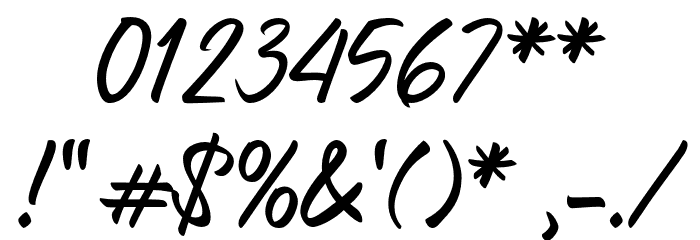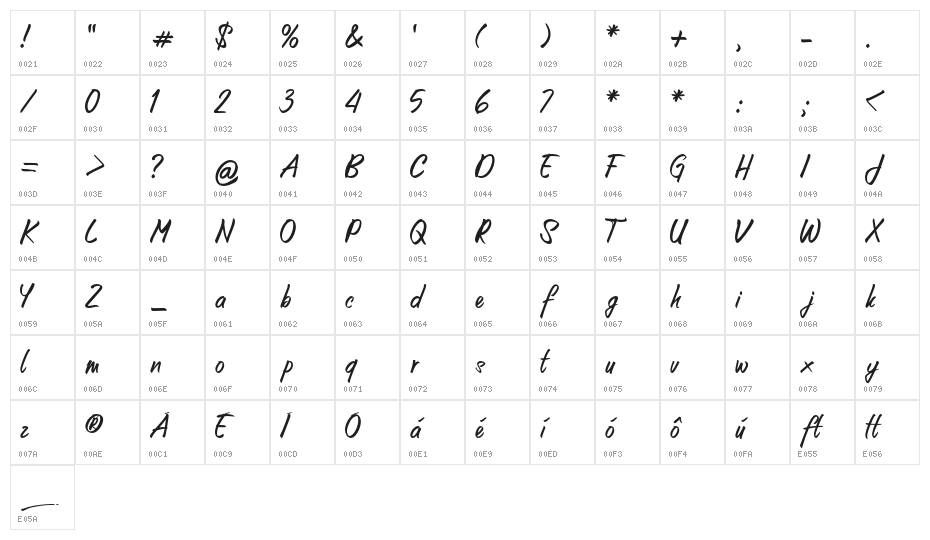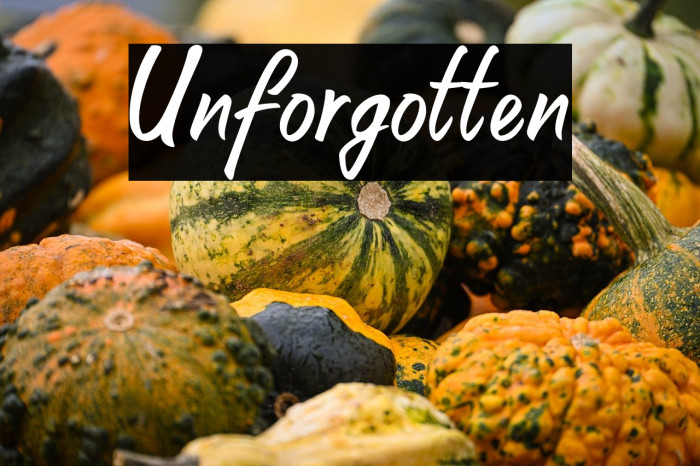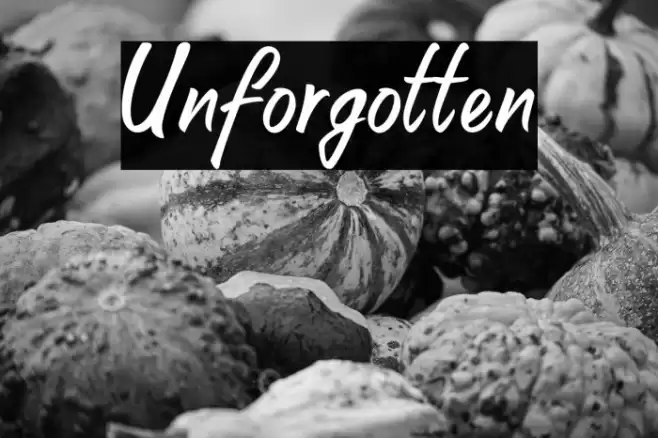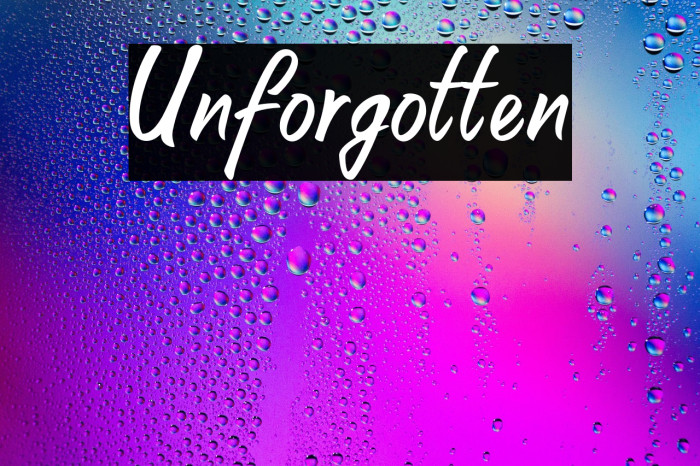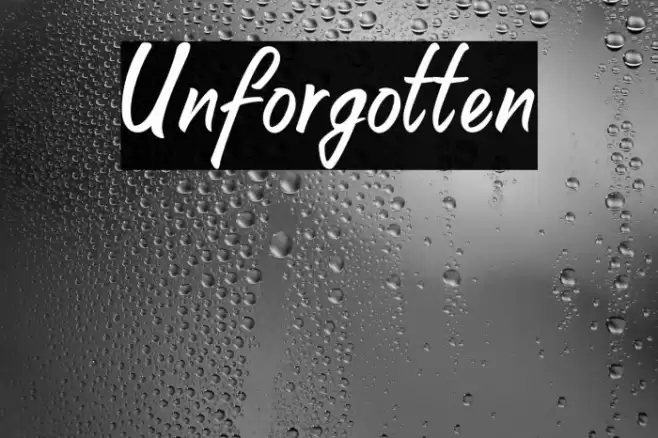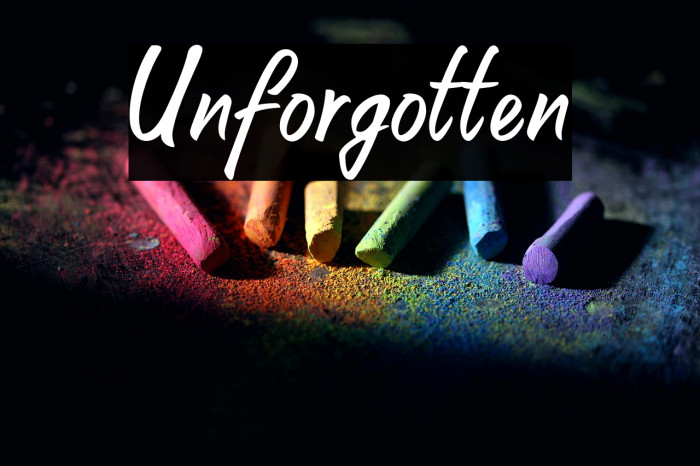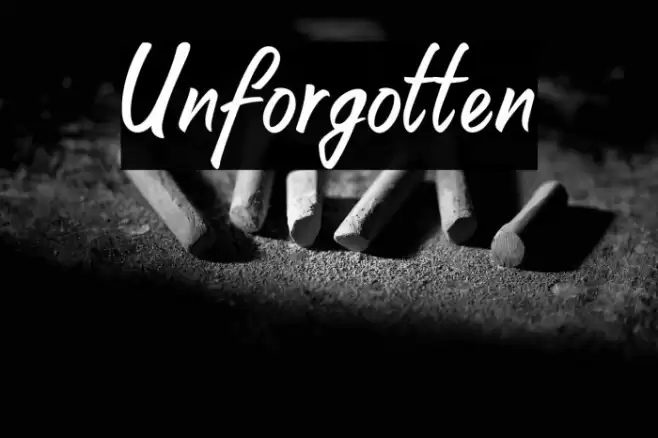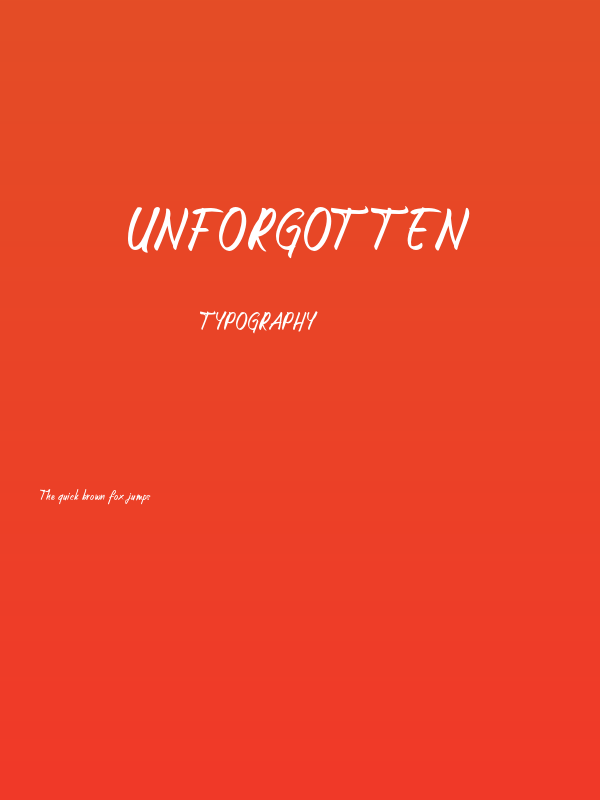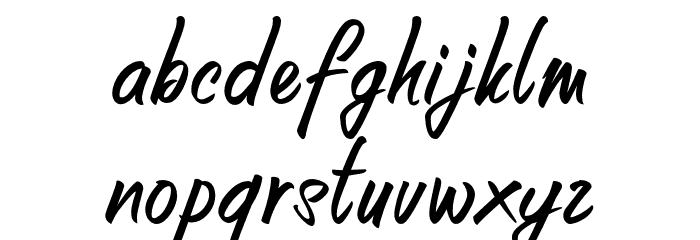
Unforgotten Font
Unforgotten Description
This font exudes a lively and dynamic energy, characterized by its fluid, cursive style. The letters are connected in a way that mimics natural handwriting, giving it a personal and informal feel. The strokes are bold and confident, with a slight slant that enhances the sense of motion and flow. The uppercase letters are tall and prominent, while the lowercase letters maintain a consistent rhythm and balance. The numerals and special characters are designed to complement the overall style, ensuring versatility in various applications. This font is perfect for projects that require a touch of elegance and personality.